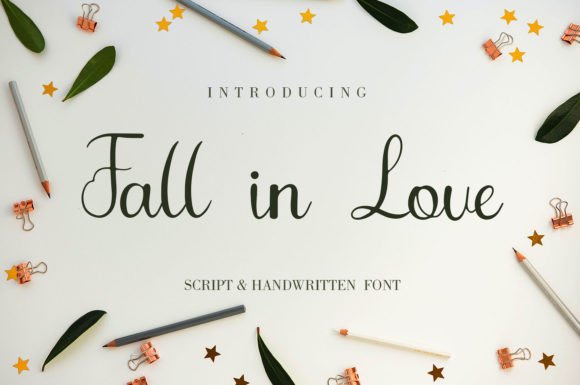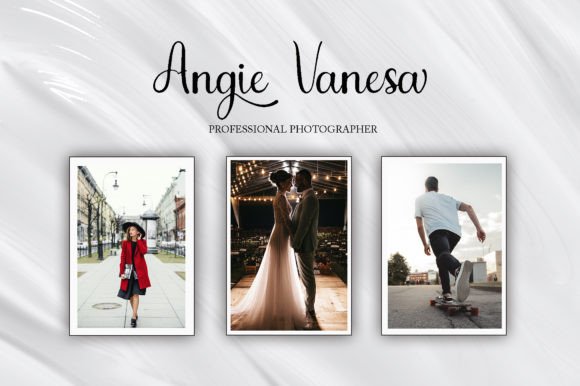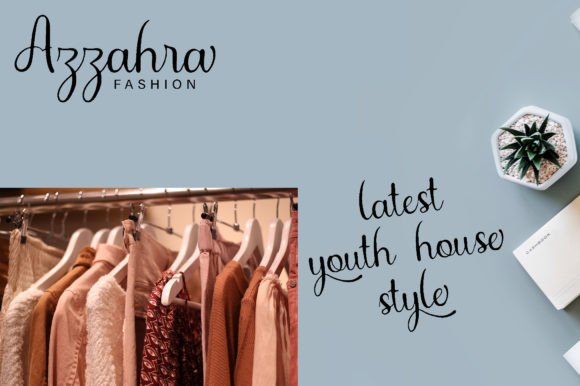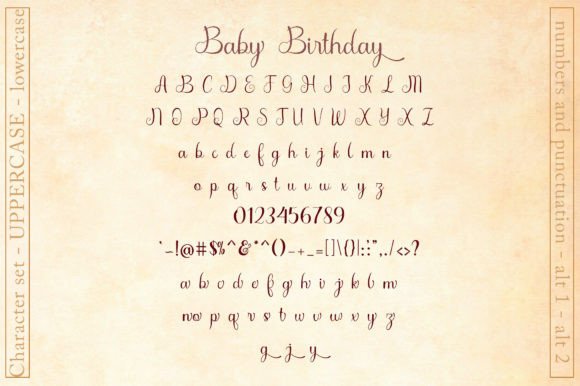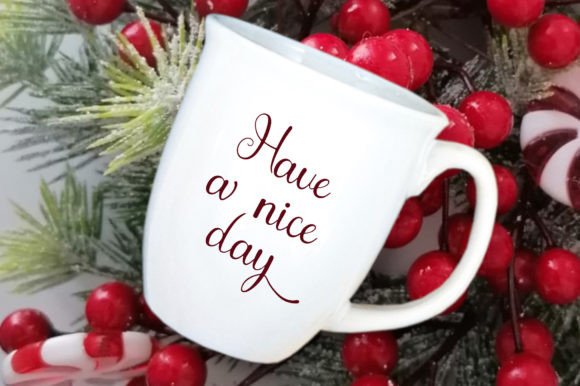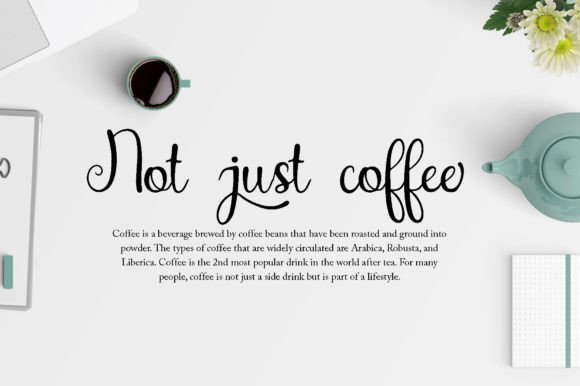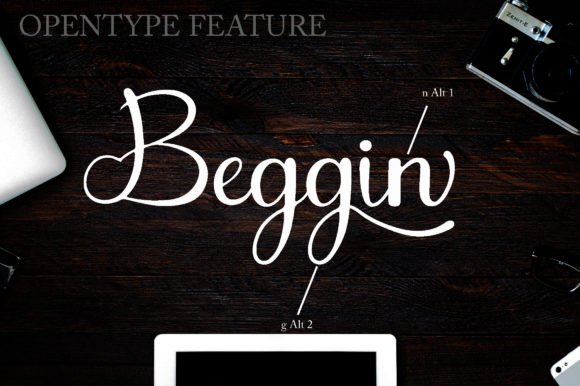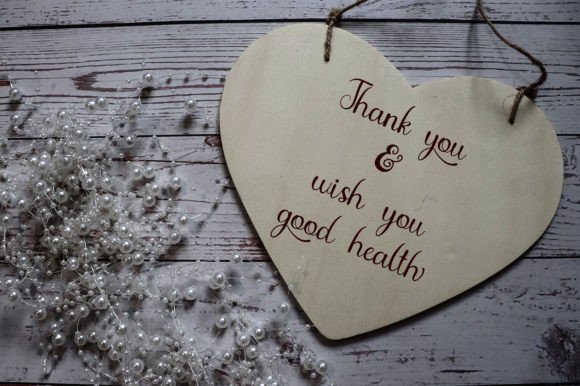
Fall in Love Font
About Fall in Love Font
“Fall In Love” is a script font that embodies the essence of meticulous craftsmanship. It has been meticulously designed, with painstaking attention given to every curve and the precise spacing between letters. The result is a font that exudes quality and is an excellent choice for a variety of creative projects, ranging from elegant wedding invitations to eye-catching t-shirt designs and impactful branding campaigns.
One of the standout features of “Fall In Love” is its elegant and flowing script style. The graceful curves and strokes of each letter convey a sense of sophistication and beauty. Whether you’re designing wedding invitations for a romantic celebration or creating a brand identity that oozes class and charm, this font has the versatility to meet your needs.
Wedding invitations are a special and significant part of any couple’s journey to their big day. “Fall In Love” is tailor-made for crafting invitations that capture the essence of love and commitment. Its graceful script adds a touch of romance to the design, making it a perfect choice for couples looking to create invitations that reflect their unique love story.
If you’re in the business of t-shirt printing, you understand the importance of eye-catching and distinctive designs. “Fall In Love” can take your t-shirt designs to the next level. Whether you’re creating statement tees, personalized apparel, or merchandise for special occasions, this font’s elegant script adds a sense of style and exclusivity that sets your products apart.
For branding and logo design, “Fall In Love” offers a unique and memorable choice. The font’s fluidity and graceful lines can be used to create logos that leave a lasting impression on customers. Whether you’re establishing a new brand or giving an existing one a fresh, elegant look, this font can be your secret weapon.
In conclusion, “Fall In Love” is more than just a font; it’s a tool for creative expression and storytelling. Its meticulous design, graceful script, and versatility make it the perfect choice for a wide range of projects. Whether you’re designing wedding invitations, t-shirts, or branding materials, this font has the power to transform your ideas into captivating visual experiences, leaving a lasting impact on your audience. Embrace “Fall In Love” and watch your projects come to life with quality, elegance, and charm.